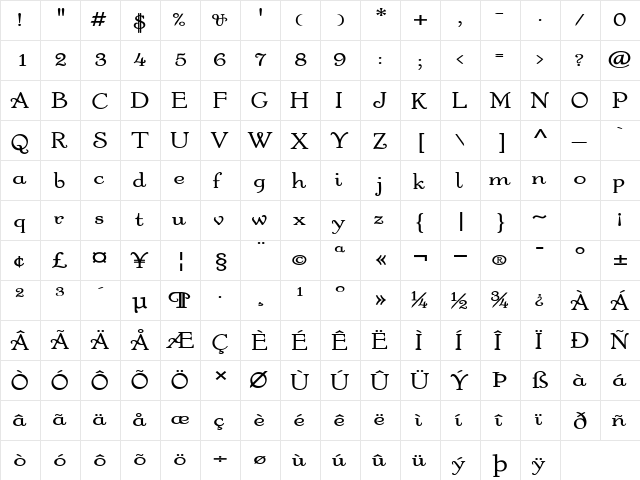
Fanciful-Extended Bold Font Preview
Fanciful-Extended Bold
Design Context for Fanciful-Extended Typeface
Fanciful-Extended is a composed and adaptable typeface that performs quietly and consistently across a wide range of design contexts. The heavy weight commands attention and anchors typographic hierarchies.